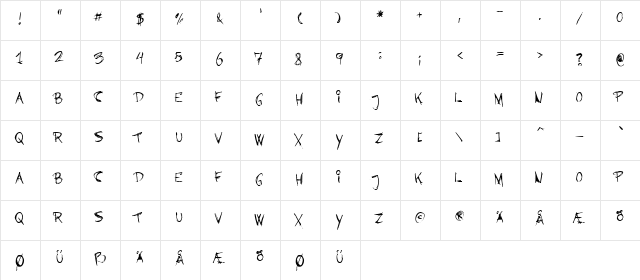
Barbies Jalous Sisters Handwriting Font Preview
Barbies Jalous Sisters Handwriting
Barbies Jalous Sisters Handwriting Font Details
| Style | Handwriting |
| Foundry | fonts.vinterstille.dk |
| Designer | Klaus Nielsen |
Design Context for Barbies Jalous Sisters Typeface
Barbies Jalous Sisters flows with the natural rhythm of handwritten lettering, making it ideal for designs that call for warmth and personal expression.